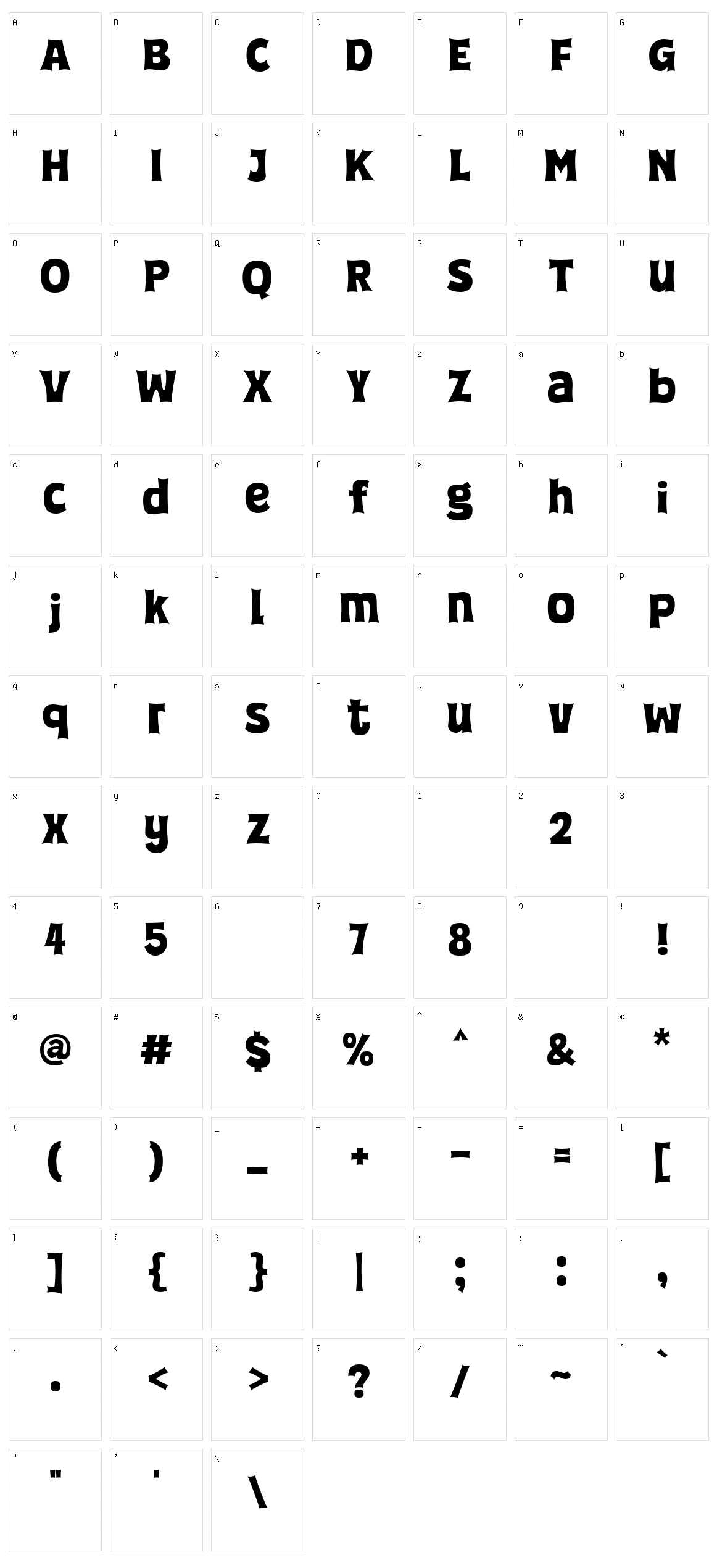
Introducing "Super Positive": A Headline Font with Infectious Optimism!
Super Positive is a bold and vibrant headline font designed to infuse your projects with infectious optimism. Its playful personality guarantees your words will grab attention and make a lasting impression.